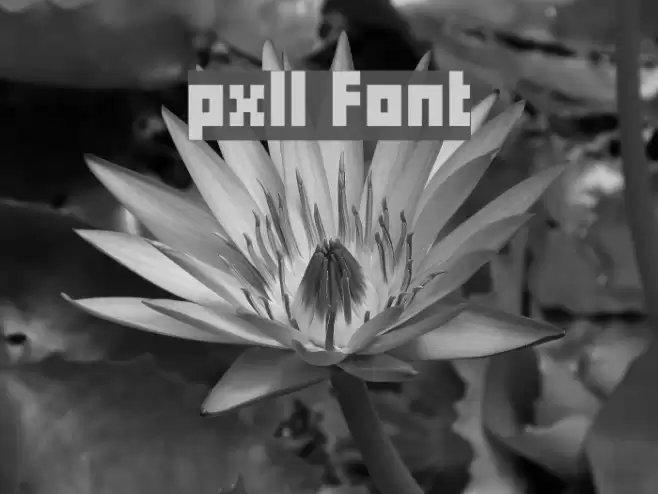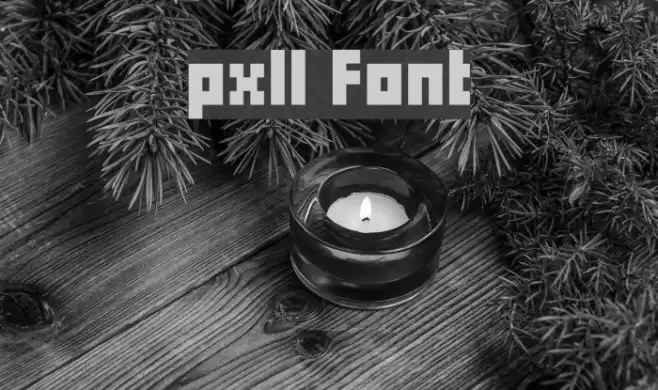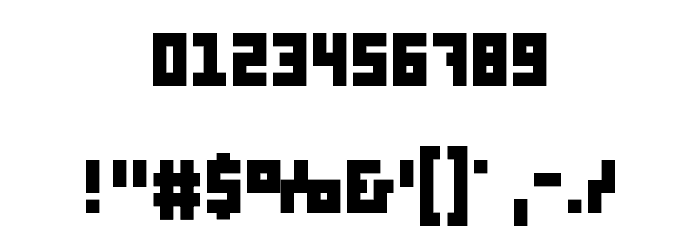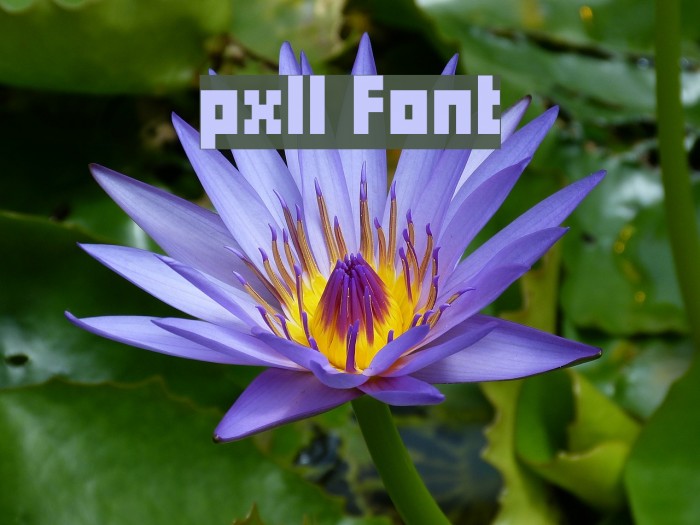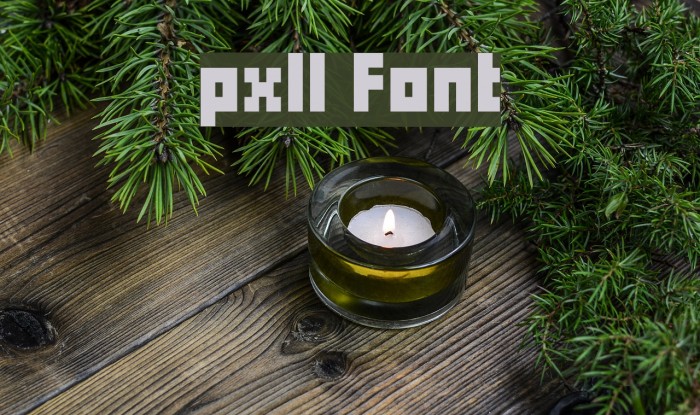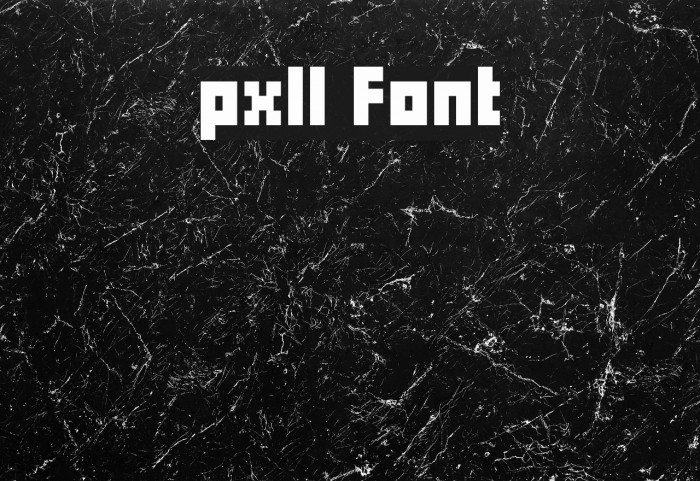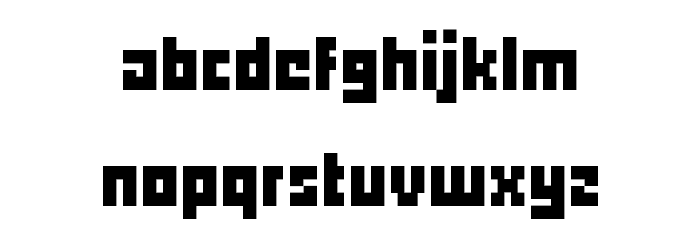
pxll Font
pxll Description
This font features a bold, blocky design with a distinctly pixelated appearance, reminiscent of early digital and arcade game typography. The characters are uniformly wide, with sharp, angular edges that create a strong visual impact. The uppercase and lowercase letters maintain a consistent height, contributing to a cohesive and structured look. The numbers and special characters follow the same pixelated style, ensuring uniformity across all glyphs. This font's retro aesthetic is perfect for projects that aim to evoke nostalgia or a digital theme.
A bold, pixelated font with a retro digital aesthetic from Uncategorized fonts.
- Proposed Projects: Ideal for video game design, retro-themed posters, digital art projects, and tech-related branding.
- Overall Style: Retro, Digital